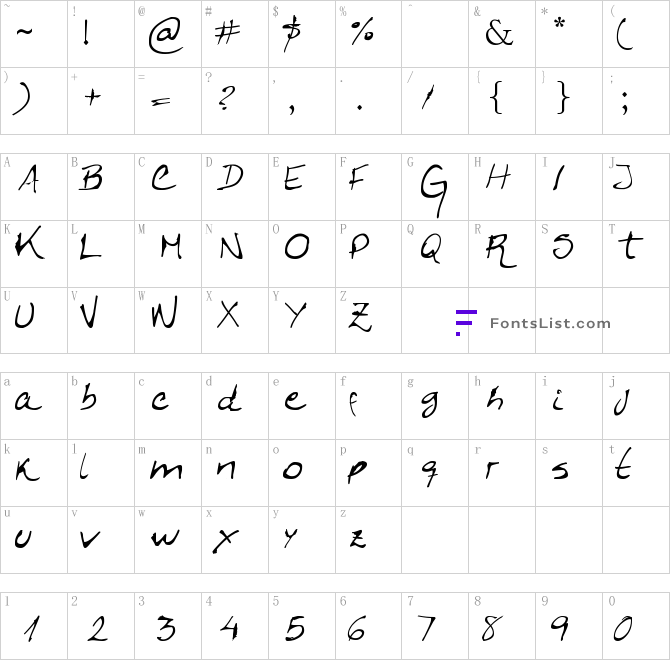
- Font Name:Caligrafica Arito
Caligrafica-Arito.ttf is a very beautiful artistic font, Caligrafica-Arito.ttf is widely used in the design and printing of various books and pictures,Caligrafica-Arito.ttf has a strong visual impact,Caligrafica-Arito.ttf is a commonly used font in newspapers, magazines and books, and is used in posters, e-commerce Poster design, store design, logo design, font design and other fields.Caligrafica-Arito.